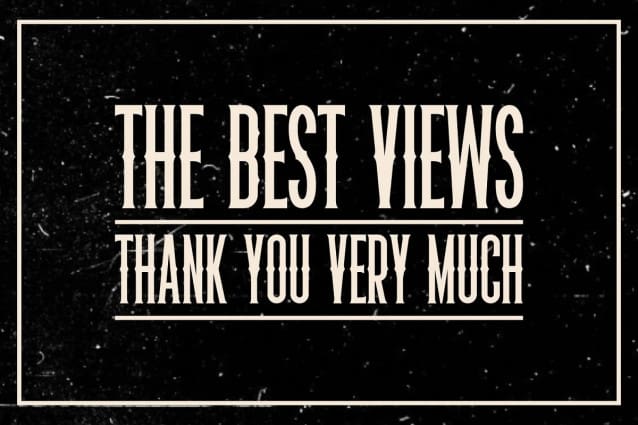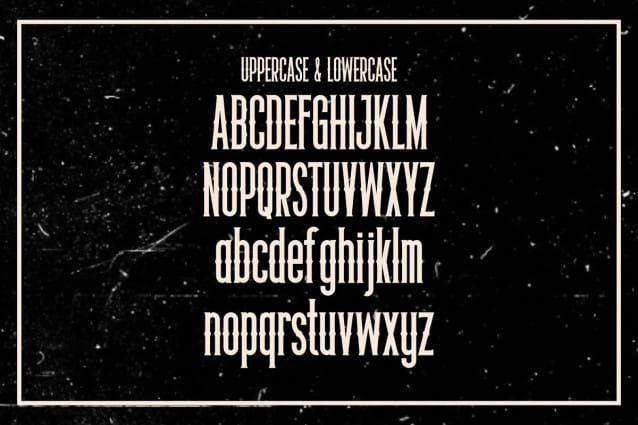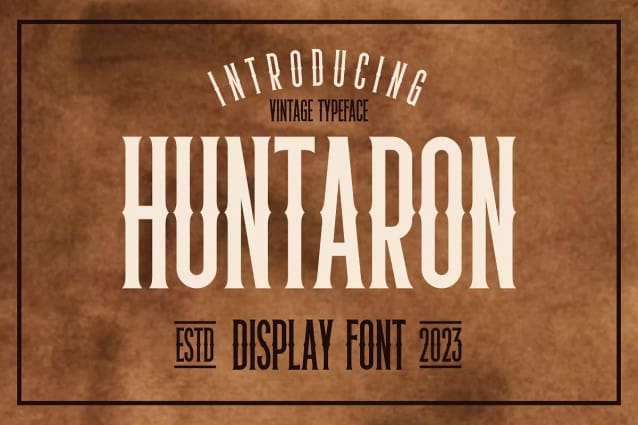
Huntaron Vintage Font
Huntaron Vintage Font – Perfectly suited on print/screen. it’s perfect for Branding, name card, poster, logo, magazine, cover, banner, t-shirt and headers, or even large-scale artwork.